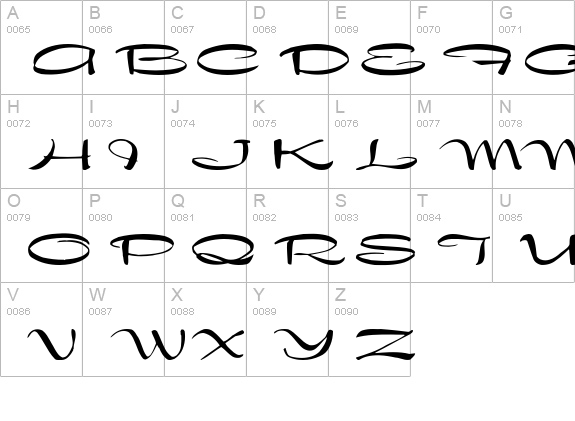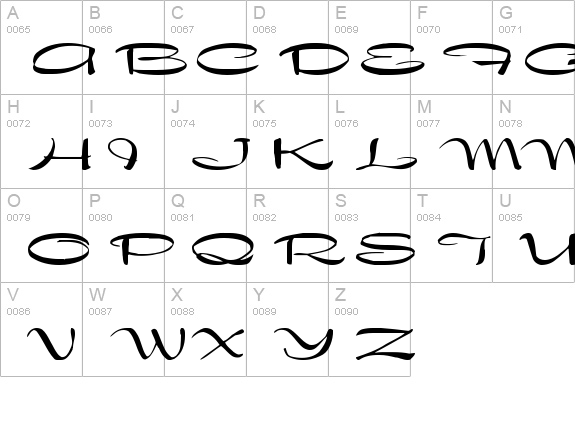
Dragonwick Font Details
Dragonwick font is a stunning display typeface that exudes elegance and sophistication. With its intricate details and unique charm, Dragonwick is perfect for adding a touch of magic to your design projects. This font features delicate serifs and graceful curves that give it a timeless appeal. The best part? Dragonwick font is completely free to download at FontsMarket.com. Whether you're working on a branding project, invitation design, or any other creative endeavor, Dragonwick font will elevate your work to the next level. Embrace the enchanting beauty of Dragonwick font and let your creativity soar.